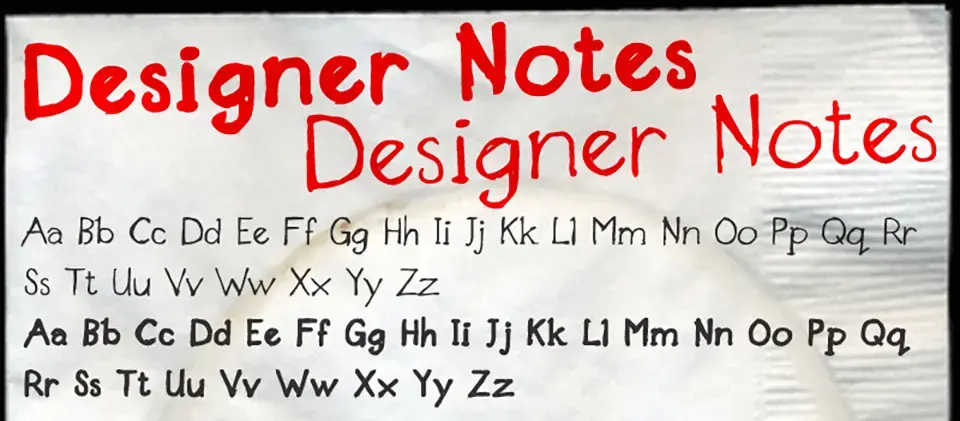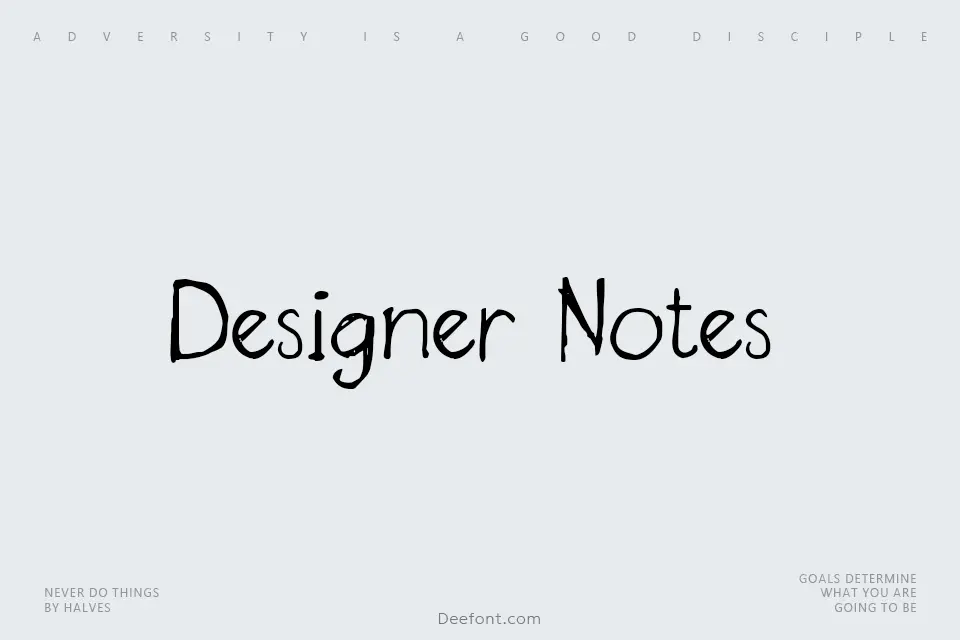
Designer Notes Font
Designer Notes is a distinctive handwritten font created to capture the natural appearance of pencil sketches and pen-on-paper notes. With its authentic, informal character formed by genuine pen strokes, this typeface brings warmth and personality to creative projects. The uneven baselines and organic flow create an approachable, artistic aesthetic ideal for posters, headers, creative titles, hand-drawn illustration projects, and any design requiring an authentic handcrafted touch. Its two-weight family supports both bold and regular styles.